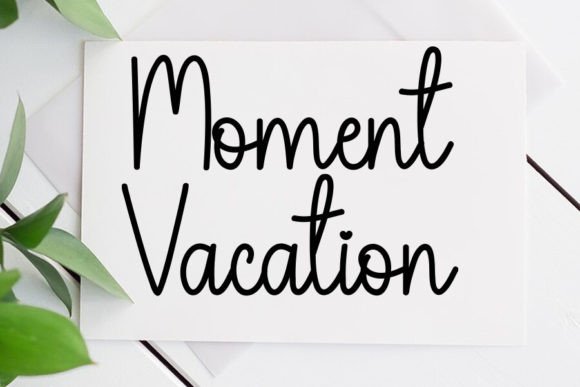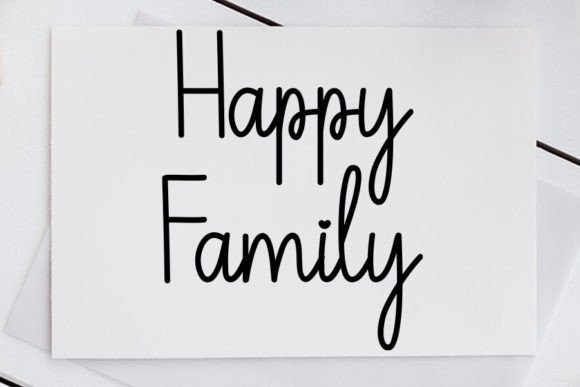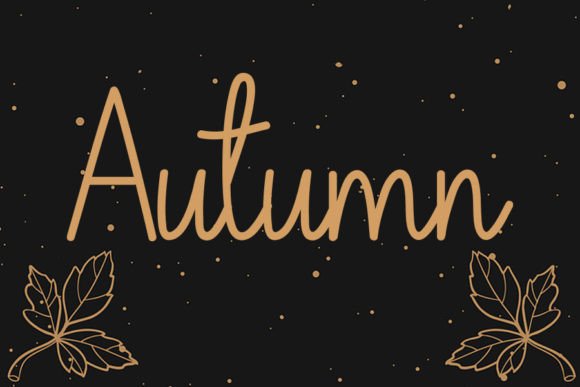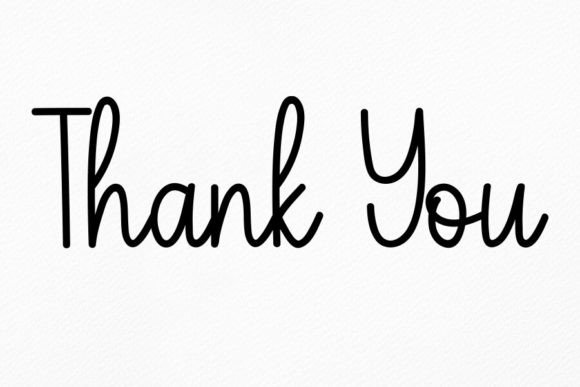
Discover the Charm of Farmhouse Font: A Timeless Handwritten Delight
Are you a designer, crafter, or DIY enthusiast looking for a font that adds a touch of warmth and personality to your projects? Look no further than the Farmhouse Font, a lovely and timeless handwritten font that’s perfect for creating eye-catching logos, branding, and quotes.
The Unique Charm of Farmhouse Font
What sets Farmhouse Font apart from other fonts is its unique and beautiful touch. Every letter has been carefully crafted to bring a sense of nostalgia and simplicity to your designs. The font’s handwritten style gives it a personal and approachable feel, making it perfect for projects that require a touch of warmth and personality.
Farmhouse Font is a versatile font that’s perfect for a wide range of design projects. Whether you’re creating logos, branding materials, quotes, or social media graphics, this font is sure to make your design come alive. Its timeless style ensures that your designs will remain relevant for years to come, and its unique charm will set you apart from the crowd.
- Handwritten style: Farmhouse Font has a beautiful, handwritten style that’s perfect for adding a personal touch to your designs.
- Unique lettering: Every letter has a unique and beautiful touch, making your designs truly stand out.
- Timeless style: Farmhouse Font has a timeless style that’s perfect for creating designs that will remain relevant for years to come.
- Versatile: This font is perfect for a wide range of design projects, from logos and branding to quotes and social media graphics.
How to Use Farmhouse Font in Your Designs
Using Farmhouse Font in your designs is easy. Here are a few tips to get you started:
- Pair with bold fonts: Pair Farmhouse Font with bold fonts for a striking contrast that will make your designs pop.
- Use in combination with images: Use Farmhouse Font in combination with beautiful images to create stunning visual graphics.
- Experiment with colors: Experiment with different colors to find the perfect combination that brings out the unique charm of Farmhouse Font.
Farmhouse Font is perfect for a wide range of design projects, including:
- Logos and branding: Create eye-catching logos and branding materials that showcase your unique style.
- Quotes and posters: Create inspiring quotes and posters that will motivate and uplift your audience.
- Social media graphics: Create stunning social media graphics that will make your followers stop and take notice.
- DIY projects: Use Farmhouse Font to add a personal touch to your DIY projects, such as crafts, scrapbooking, and more.
Farmhouse Font is a timeless handwritten font that’s perfect for designers, crafters, and DIY enthusiasts. Its unique and beautiful touch makes it perfect for creating eye-catching logos, branding, and quotes. With its versatile style and wide range of design applications, Farmhouse Font is sure to become a favorite in your design arsenal.